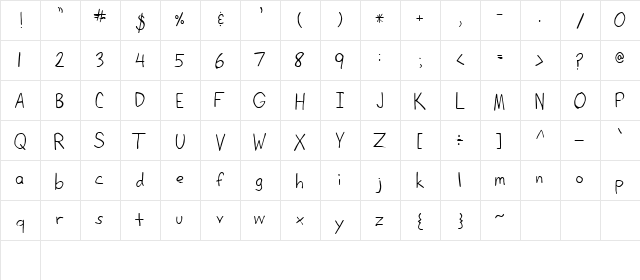
Mc Regular
Design Context for Mc Typeface
Mc is a composed and adaptable typeface that performs quietly and consistently across a wide range of design contexts.